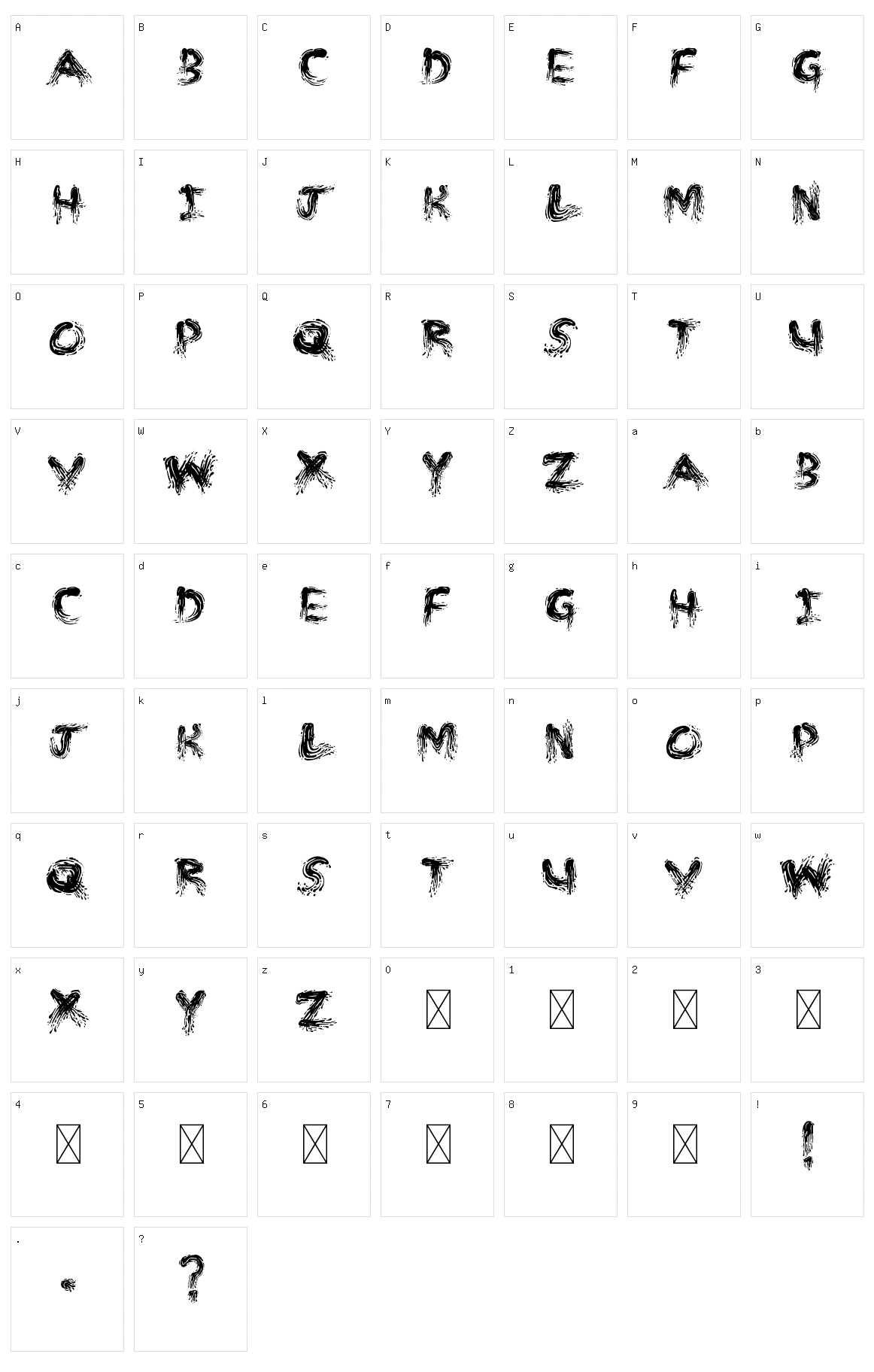
The free font MM Strokes is carefully designed by Marcus Melton, showcasing a thoughtful balance of creativity and usability and falls under the Script font style. When you download the ZIP file, it contains only 66.24 KB of font files, making it lightweight and quick to download. Please review the license details below to understand permitted usage and distribution rights. If license information is not available, we recommend using this font for personal projects only or contacting the author directly for commercial usage permissions.